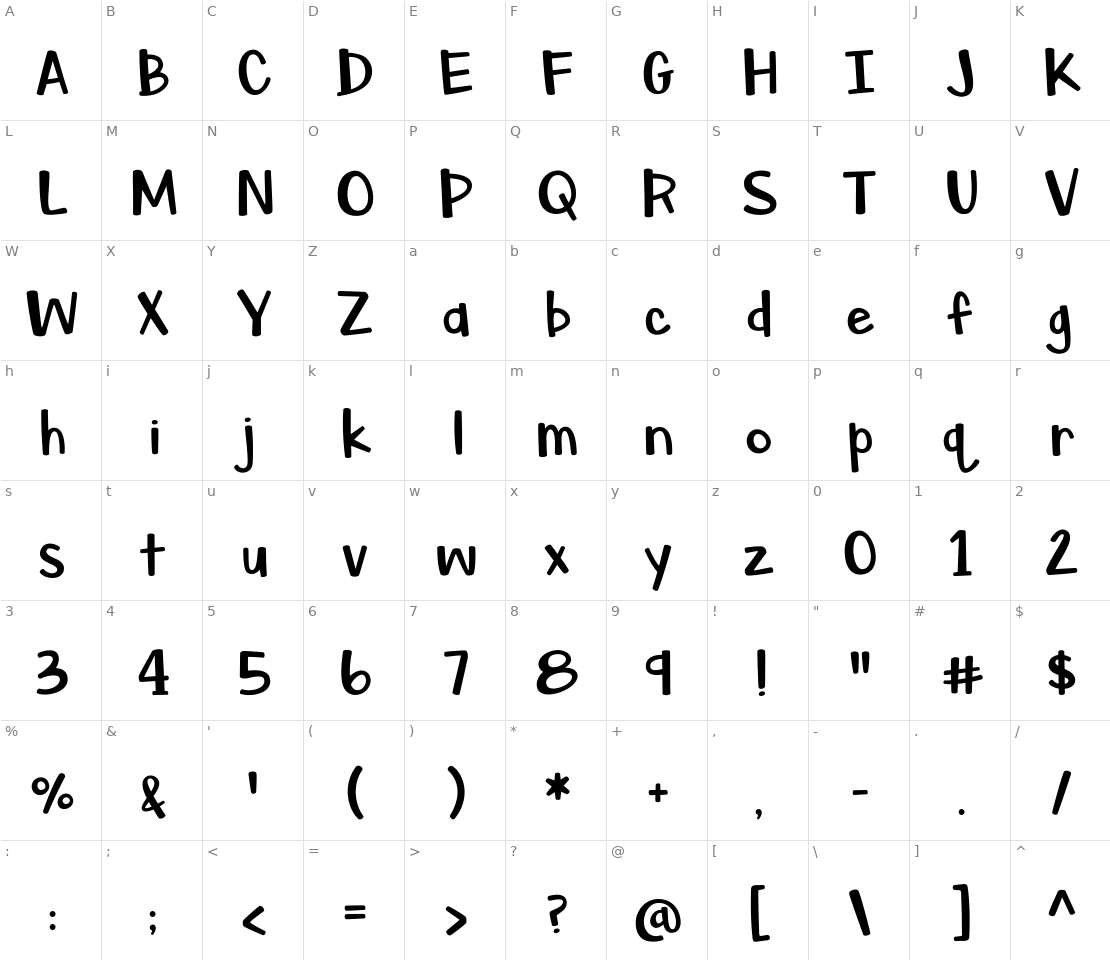
Asparagus Sprouts
Asparagus Sprouts is a bold, rounded handwritten face from Brittney Murphy Design that feels like someone grabbed a thick marker and wrote with real enthusiasm. The strokes are chunky and playful, with soft edges that keep things approachable and friendly rather than rough. It works naturally in headlines, packaging, and children's branding where you want hand-lettered energy with enough weight to hold its own.